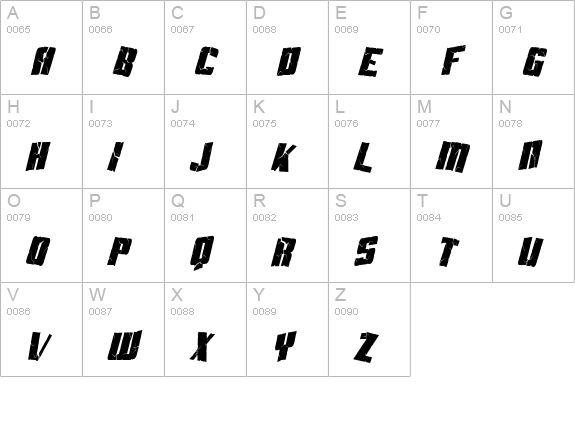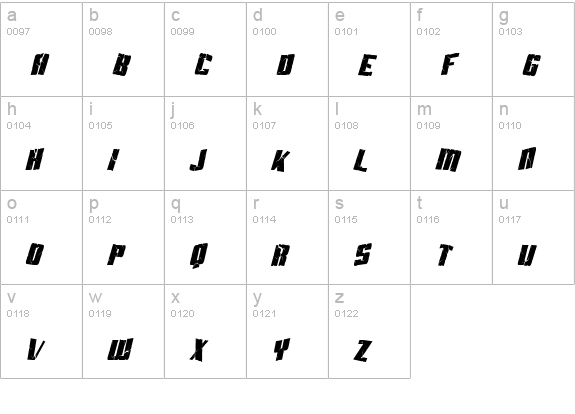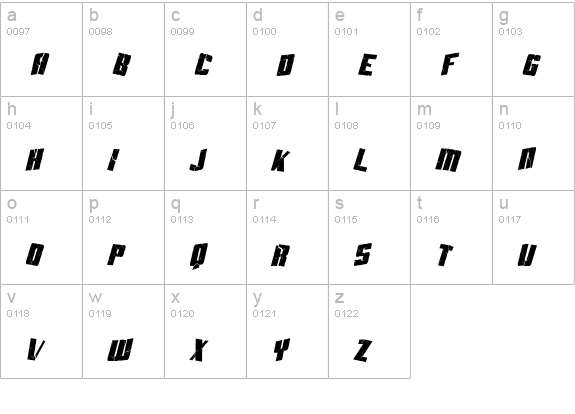
Aftershock Debris Condensed Italic is a distinctive, condensed-width, italic variant in the Aftershock typeface family \xE2\x80\x94 well suited to design and typography projects.
Aftershock Debris Condensed Italic font is a striking typeface that exudes a modern and edgy vibe. With its slanted and condensed design, this font is perfect for creating eye-catching headlines, titles, and graphic designs that demand attention. The sleek and angular letterforms of Aftershock Debris Condensed Italic add a dynamic touch to any project, making it ideal for projects that require a contemporary and bold aesthetic. Best of all, Aftershock Debris Condensed Italic font is available for free download at FontsMarket.com. Whether you're a designer looking to add a unique flair to your creations or a business owner in need of a standout font for branding materials, this font is a versatile and accessible choice. Download Aftershock Debris Condensed Italic today and elevate your designs with its modern and impactful style.